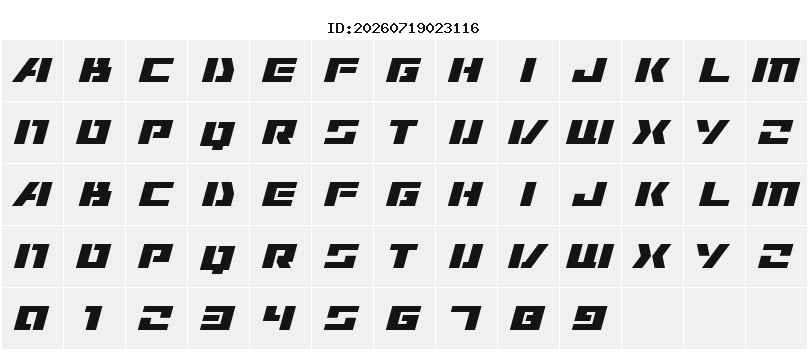
Continue Preview
• Font Name: Continue
• Font Style: AL
• Font ID: Fontographer 4.7 Continue AL
• Full Font Name: Continue AL
• PostScript Name: ContinueAL
About Continue.ttf
Continue.ttf is a modern, elegant sans-serif font designed for ultimate readability and visual harmony. Perfect for branding, headlines, web design, and print materials.